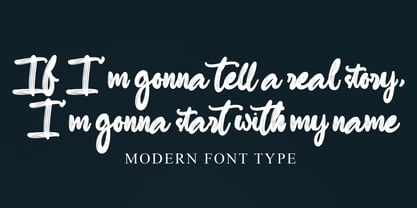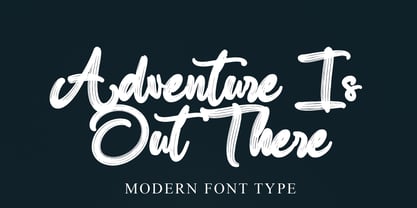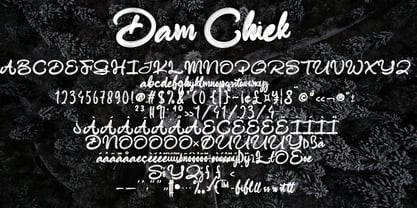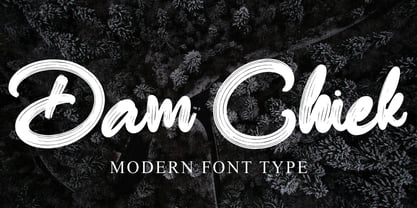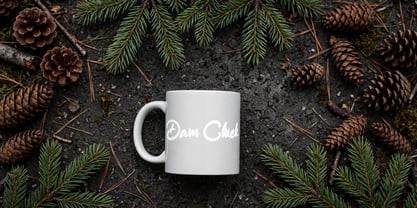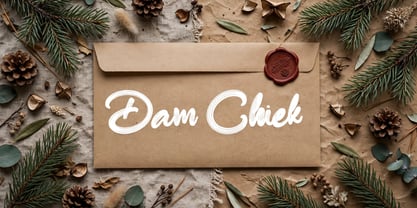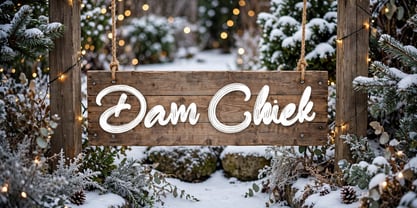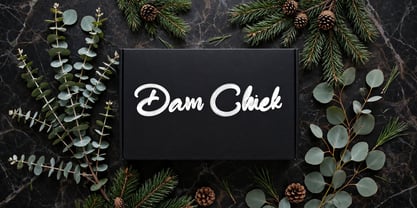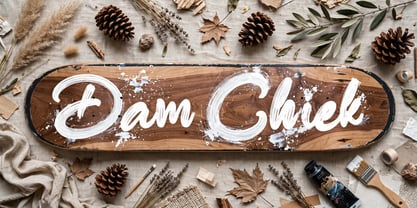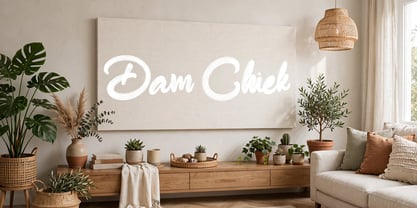
Dam Chiek
by Ayska
The Dam Chiek Font Family was designed by Dhoni Trihatmoko and published by Ayska. Dam Chiek contains 1 styles. More about this family
Immerse in the alluring world of Dam Chiek, an exceptional font that harmonizes the contemporary chic essence with an easy, handwritten elegance. Handcrafted with care, Dam Chiek exudes a unique charm and refined grace, becoming an invaluable companion in your digital design voyage. Let its enthralling charisma enhance your blog's appeal, lend a novel exclusivity to your digital planner designs, interweave distinct personality into your invites, or transmit heartfelt sentiments through your handmade greeting cards. Discover the timeless grace and inventive spirit of Dam Chiek as it dramatically transforms your keepsake photo albums or customized decor. With an impact that effortlessly transforms simple digital displays into stunning, eye-catching masterpieces, Dam Chiek's striking charm is unmatched. Let Dam Chiek serve as the cornerstone to your creative endeavours, orchestrating a spectacle of memorable artistry. Surrender to the creative enchantment of Dam Chiek, and watch your artistic dreams evolve into distinct, dazzling realities.
Designers: Dhoni Trihatmoko
Foundry: Ayska